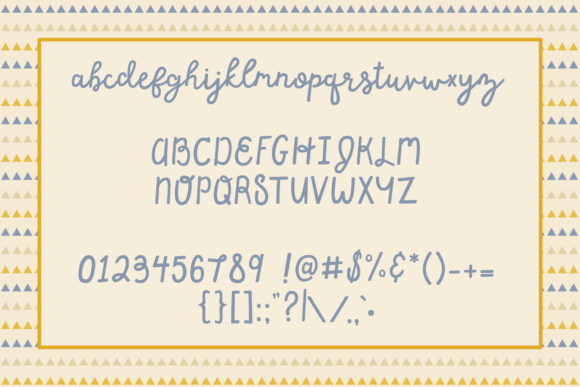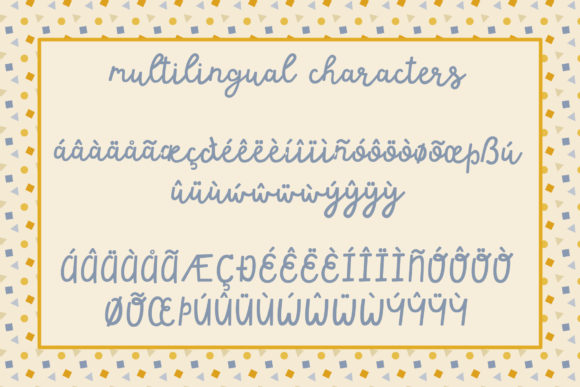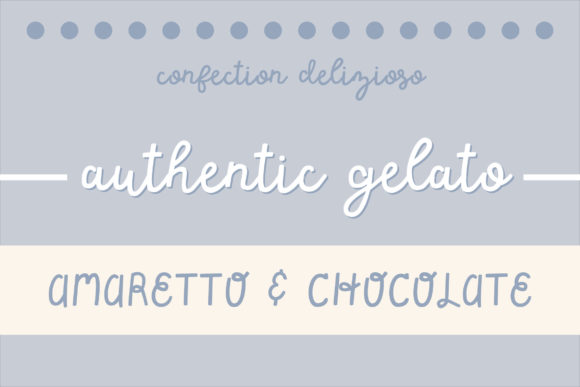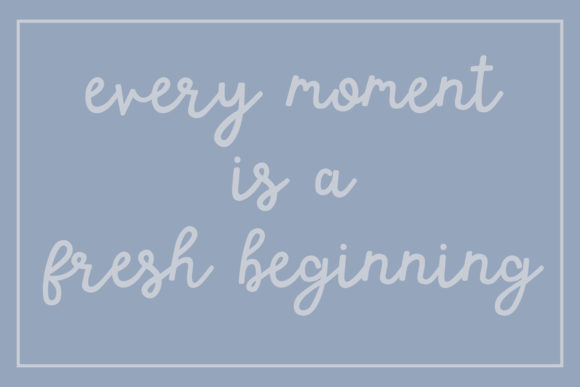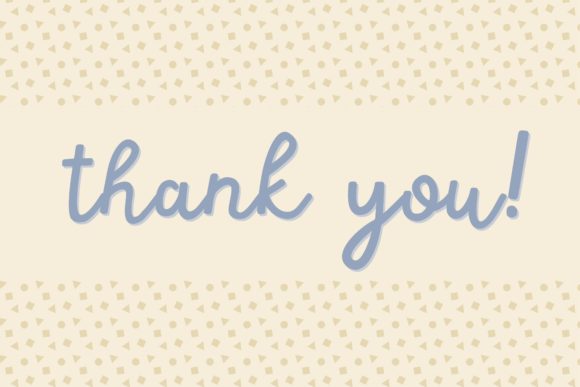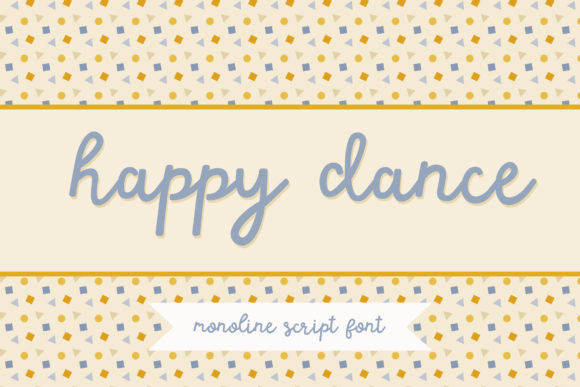
Introducing Happy Dance Font: The Ultimate Script Font for Creative Expression
Are you ready to add a dash of joy and whimsy to your creative projects? Look no further than the Happy Dance Font, a delightful hand-drawn script font that’s sure to bring a smile to your face. In this article, we’ll dive into the features and benefits of this charming font, and explore how it can elevate your branding, packaging, crafting, social media, and more.
The Story Behind Happy Dance Font
Happy Dance Font is a carefully crafted script font that’s been hand-drawn with love and attention to detail. The font’s creator has meticulously cleaned up the design to reduce the number of nodes, ensuring a smooth and seamless writing experience. The result is a font that’s not only visually appealing but also highly versatile and easy to use.
What Sets Happy Dance Font Apart?
So, what makes Happy Dance Font so special? Here are just a few of its standout features:
• Hand-drawn with love: Each character has been carefully crafted by hand, giving the font a unique and personal touch.
• Comprehensive character set: Happy Dance Font includes lowercase script, uppercase characters, numbers, punctuation, and multilingual characters, making it perfect for a wide range of creative applications.
• Cute, flirty, and sweet: This font’s playful and charming personality is sure to add a touch of whimsy to your designs.
Happy Dance Font is a dream come true for designers and crafters looking to add a personal touch to their work. Whether you’re creating:
• Branding materials: Use Happy Dance Font to add a playful and approachable vibe to your logos, business cards, and letterheads.
• Packaging designs: Add a touch of whimsy to your product packaging with this delightful font.
• Crafting projects: Happy Dance Font is perfect for crafters who want to add a personal touch to their DIY projects, such as handmade cards, gift tags, and scrapbooking.
• Social media graphics: Use this font to create eye-catching social media graphics that are sure to engage your audience.
Tips for Getting the Most Out of Happy Dance Font
To make the most of Happy Dance Font, here are a few tips to keep in mind:
• Experiment with different sizes and colors: Happy Dance Font looks great in a variety of sizes and colors, so don’t be afraid to get creative and try out different combinations.
• Pair it with other fonts: Happy Dance Font pairs beautifully with other fonts, so try combining it with a bold or serif font to add contrast and interest to your designs.
• Use it consistently: To create a cohesive brand identity, use Happy Dance Font consistently across all your marketing materials.
Font Name Happy Dance Font
Author kelliejaynestudio
In conclusion, Happy Dance Font is a delightful script font that’s sure to bring joy and creativity to your designs. With its hand-drawn charm, comprehensive character set, and versatile personality, this font is perfect for designers and crafters looking to add a personal touch to their work. So why not do your happy dance and give Happy Dance Font a try today?